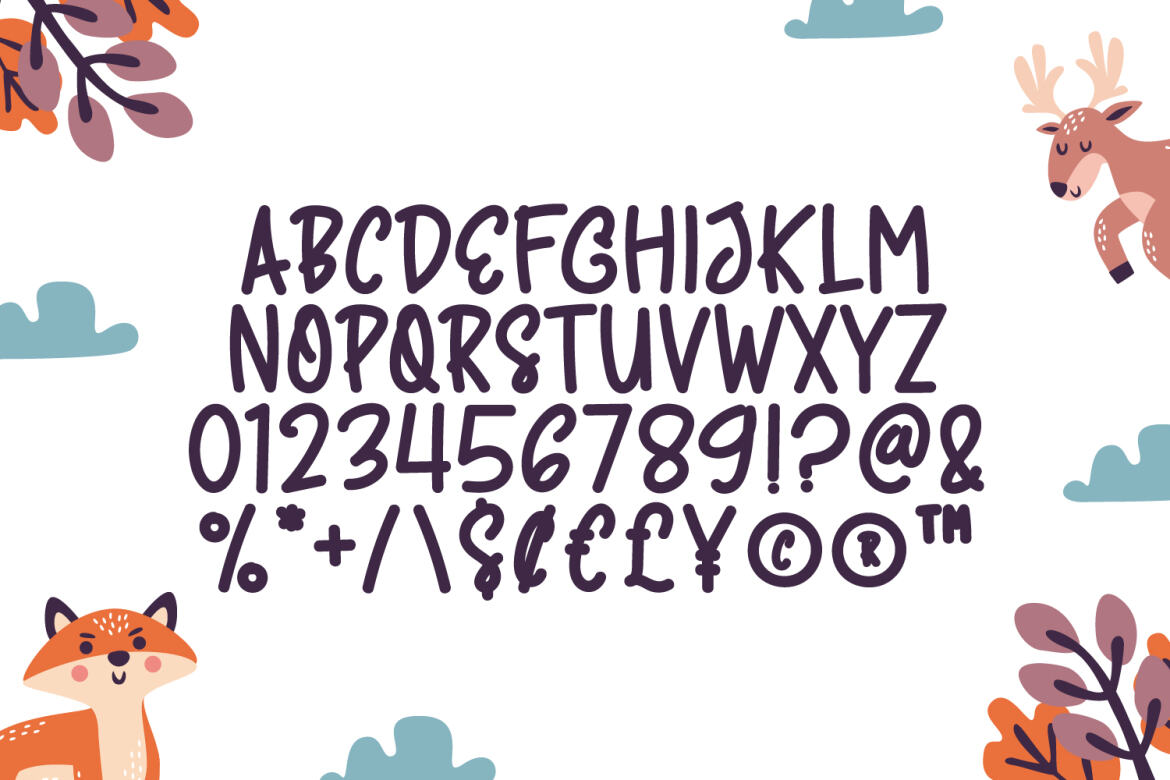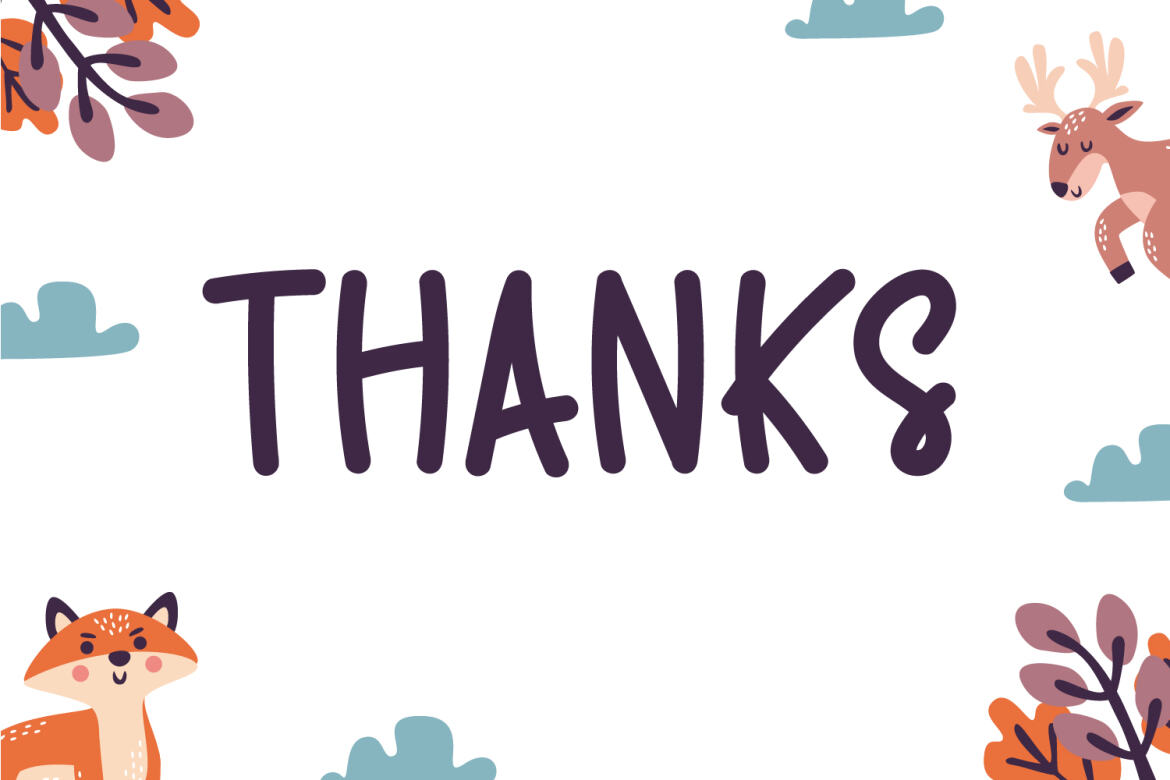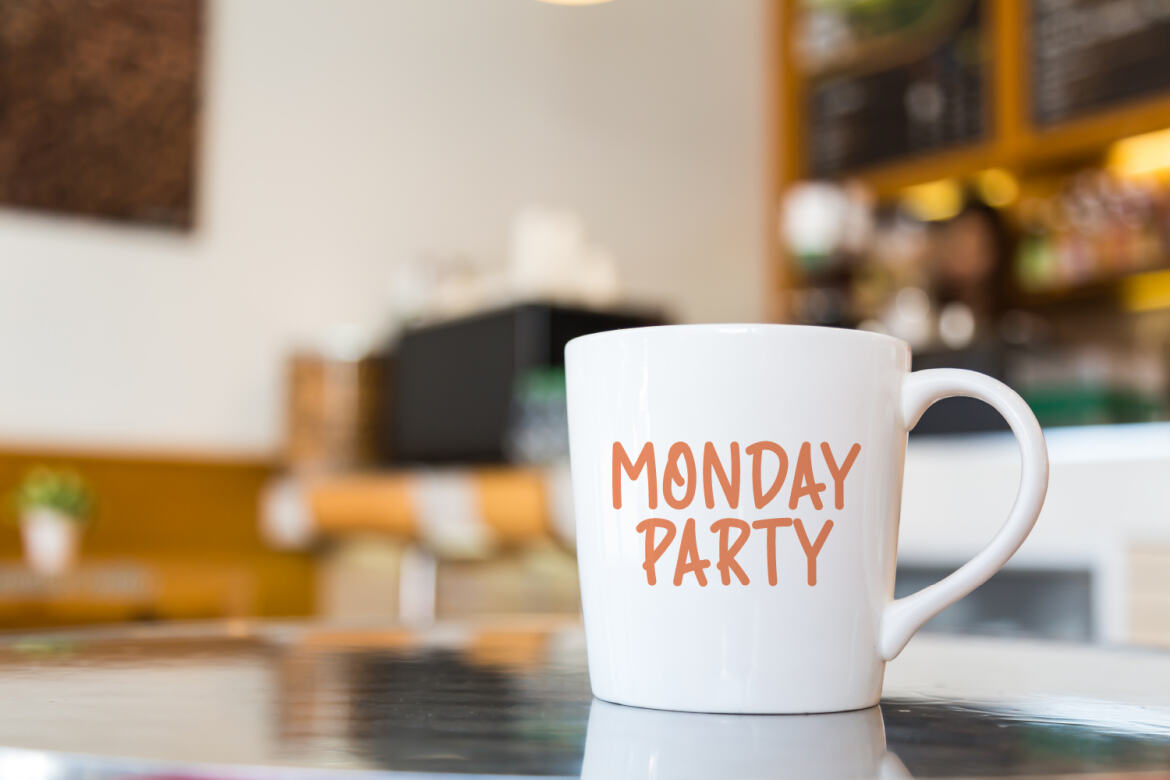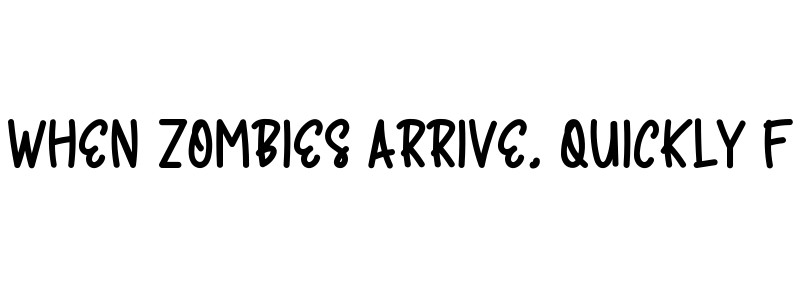
Comic Animal - Free Cute Font
Comic Animal
Comic Animal - Cute Display Font
Comic Animal is a quirky and cute display font that fits perfectly into anything. Its casual charm makes it look very down to earth, easy to read and, in the end, very versatile.Add this beautiful display font to your every creative idea.
This font is perfect for quotes, shirt designs, websites, branding, children's designs, blogs, logos, invitations and more!